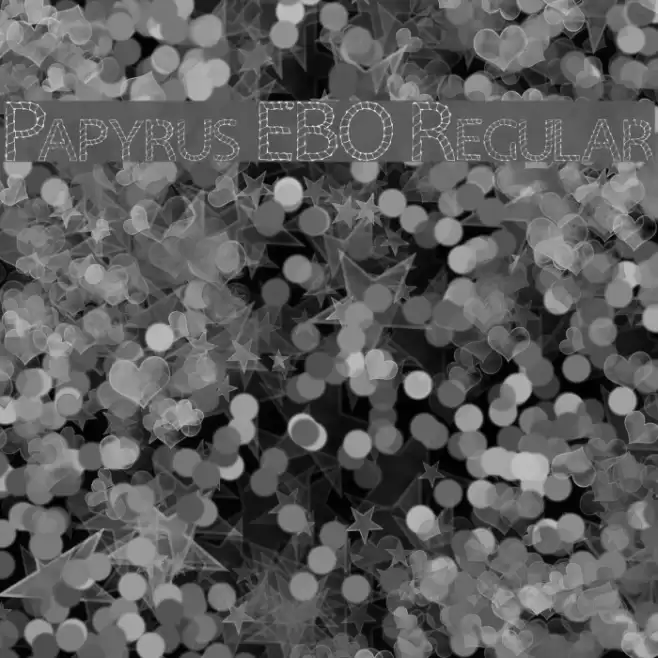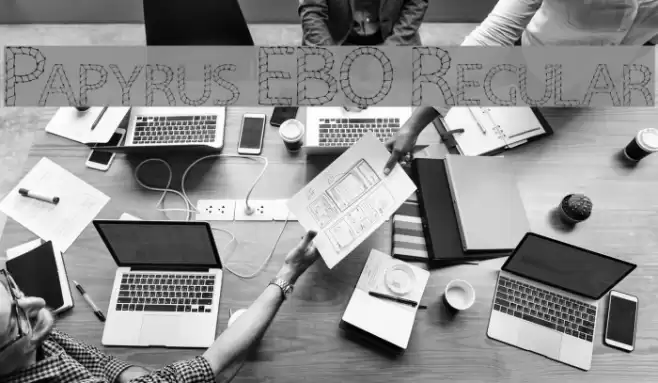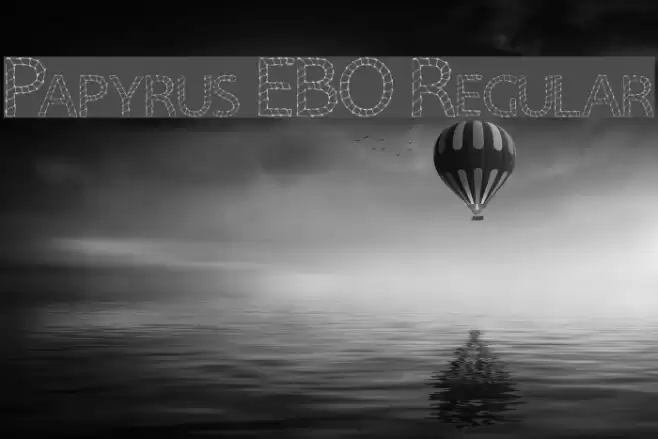
Papyrus EBO Regular Font
Papyrus EBO Regular Description
This font features a unique, decorative style with a textured, rope-like appearance. Each character is composed of segments that mimic the look of intertwined strands, giving it a distinctive and artistic flair. The uppercase letters are bold and prominent, while the lowercase letters maintain the same intricate design. The numbers and special characters follow the same pattern, ensuring consistency across all glyphs. This font's design is eye-catching and would stand out in any creative project, making it ideal for titles and headings that require a touch of elegance and uniqueness.
A decorative font with a textured, rope-like appearance, ideal for creative projects from Decorative fonts.
- Proposed Projects: This font is perfect for artistic projects, such as posters, invitations, and branding materials that require a unique and decorative touch.
- Contrast: High